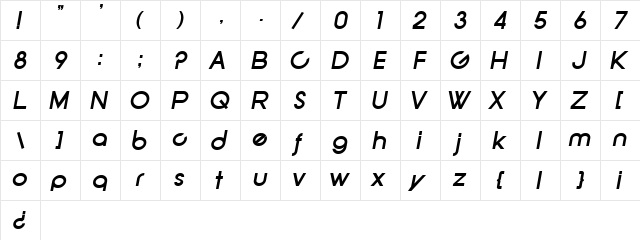
SF New Republic2 Bold Italic
Design Context for SF New Republic2 Typeface
SF New Republic2 is a composed and adaptable typeface that performs quietly and consistently across a wide range of design contexts. The slanted form adds forward momentum and visual energy. The heavy weight commands attention and anchors typographic hierarchies.
Pro Tip: Use SF New Republic2 for emphasis, pull quotes, and subheadings where its slanted energy can add rhythm to the layout.